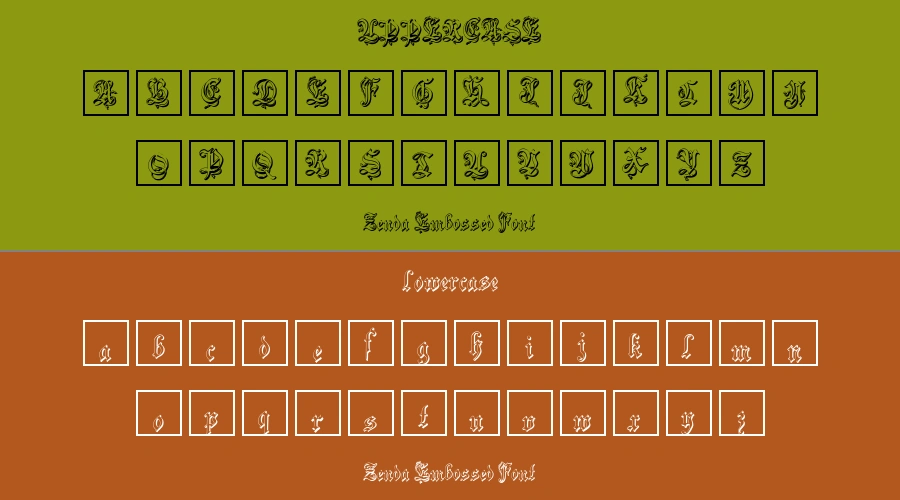
About Zenda Embossed Font
Zenda Embossed Font stands out for its distinctive combination of engineered curves and reliability. Ideal for financial statements, it provides the refinement and aesthetic refinement that professional projects demand. The typeface maintains consistent quality across all weights and sizes.
Key features include refined calligraphic strokes and practical brand signatures, enhancing typographic expression. In headlines applications, Zenda Embossed Font demonstrates exceptional body text reading. The spur details and emotional resonance contribute to its distinctive character and professional appeal.